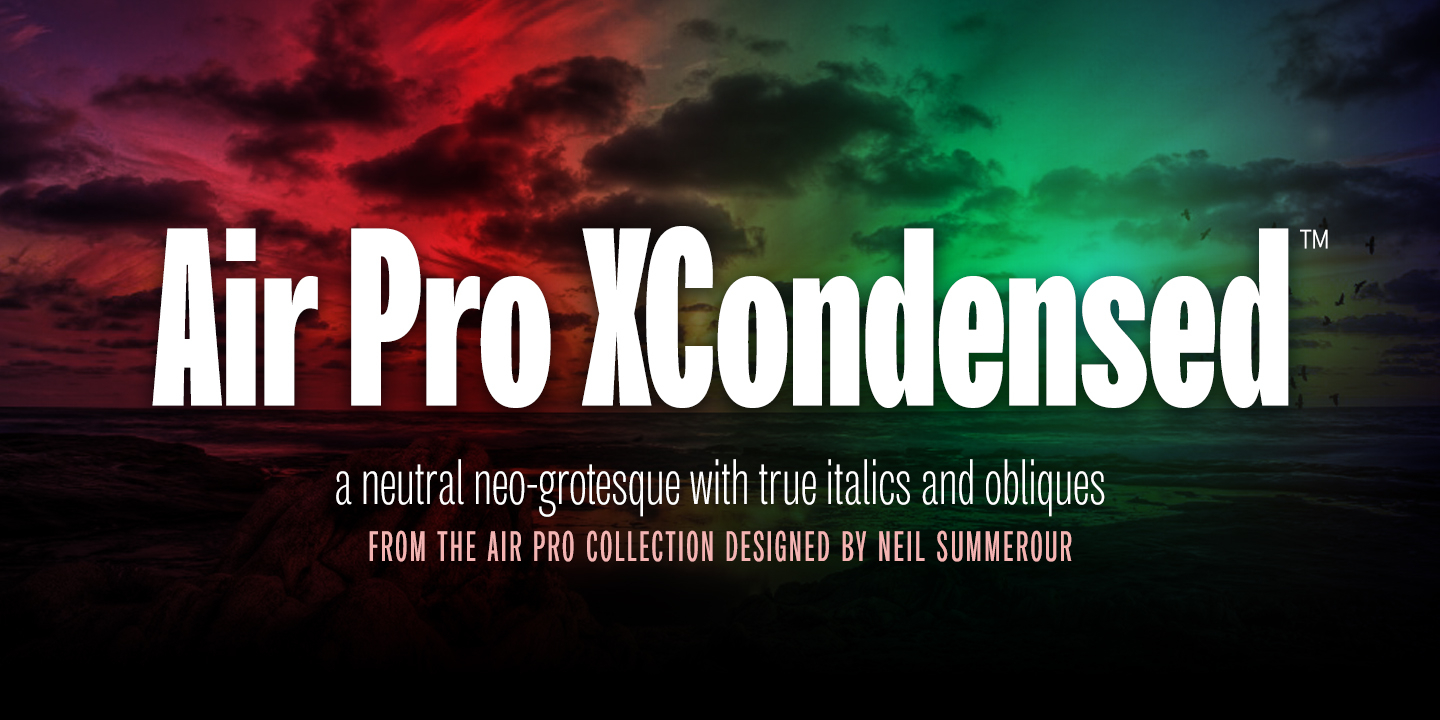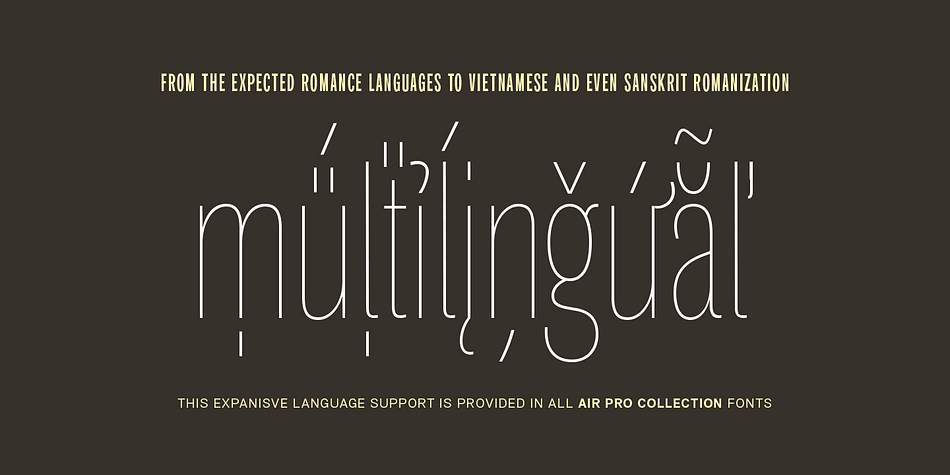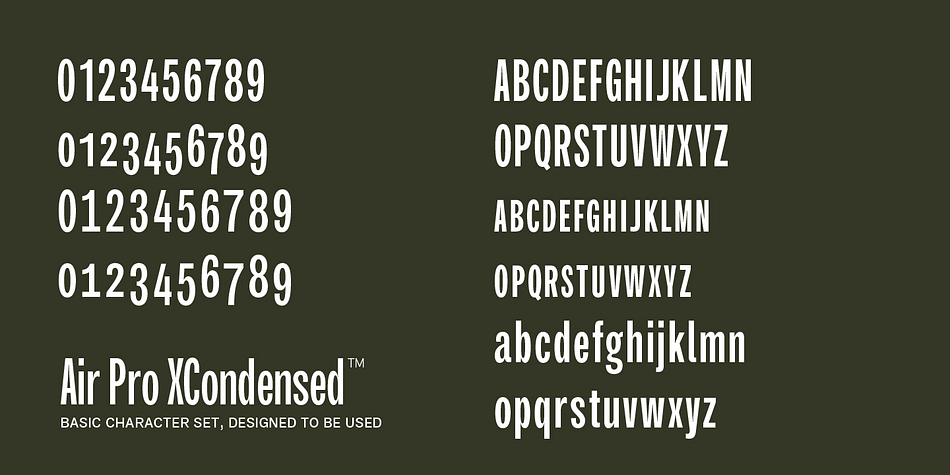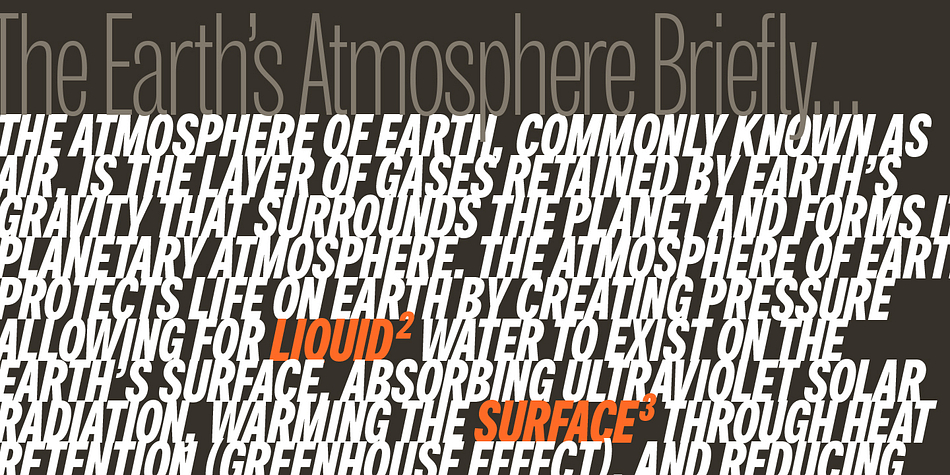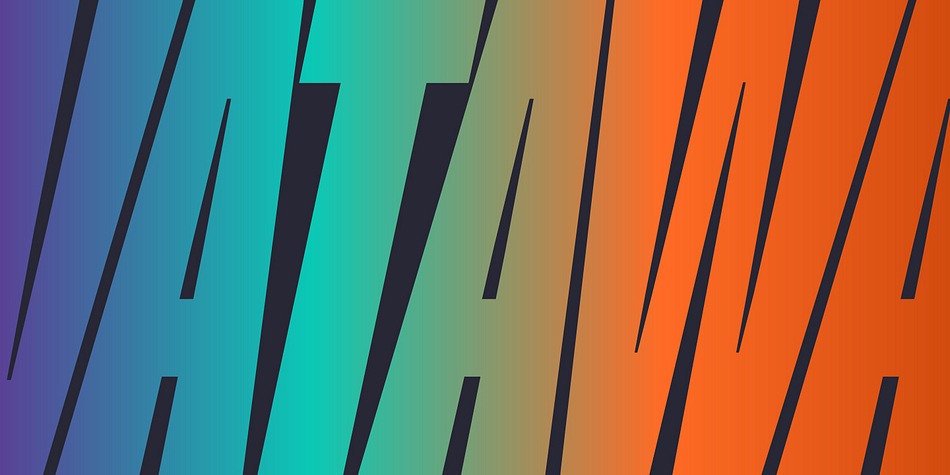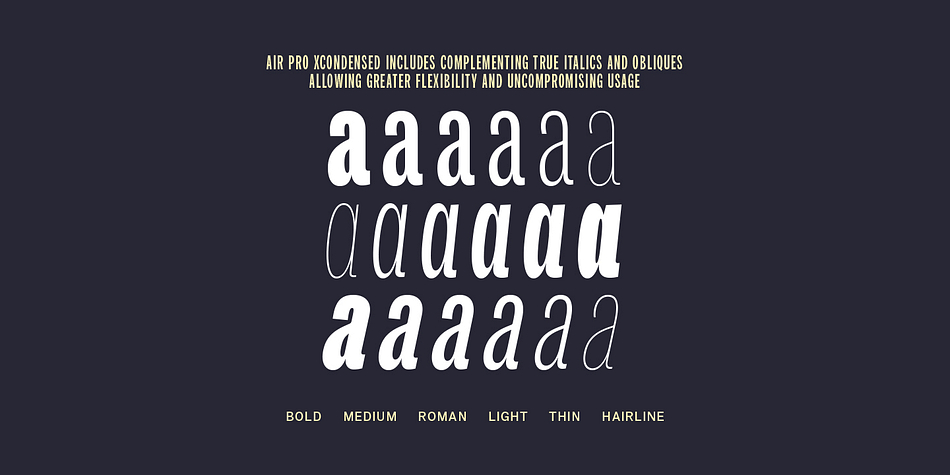
Designed by Neil Summerour, Air Pro XCondensed is a sans serif font family. This typeface has eighteen styles and was published by Positype.
Air Pro XCondensed is a neutral, highly legible neo-grotesque that includes both true italics and obliques. This typeface is refinement and expansion of Air, originally designed in 2011 by Neil Summerour. Heavily influenced by Summerour’s Aaux Next typeface and Akzidenz-Grotesk, the typeface features a very efficient footprint, logical weight options, small caps, expanded numeral sets, extensive language support, and 5 total widths. The new Air Pro Collection focuses on flexibility, accessibility, and usability rather than hinging the design on distracting design traits that could diminish legibility or become dated over time. Besides, even with grotesques, we all need a little fresh air from time to time.